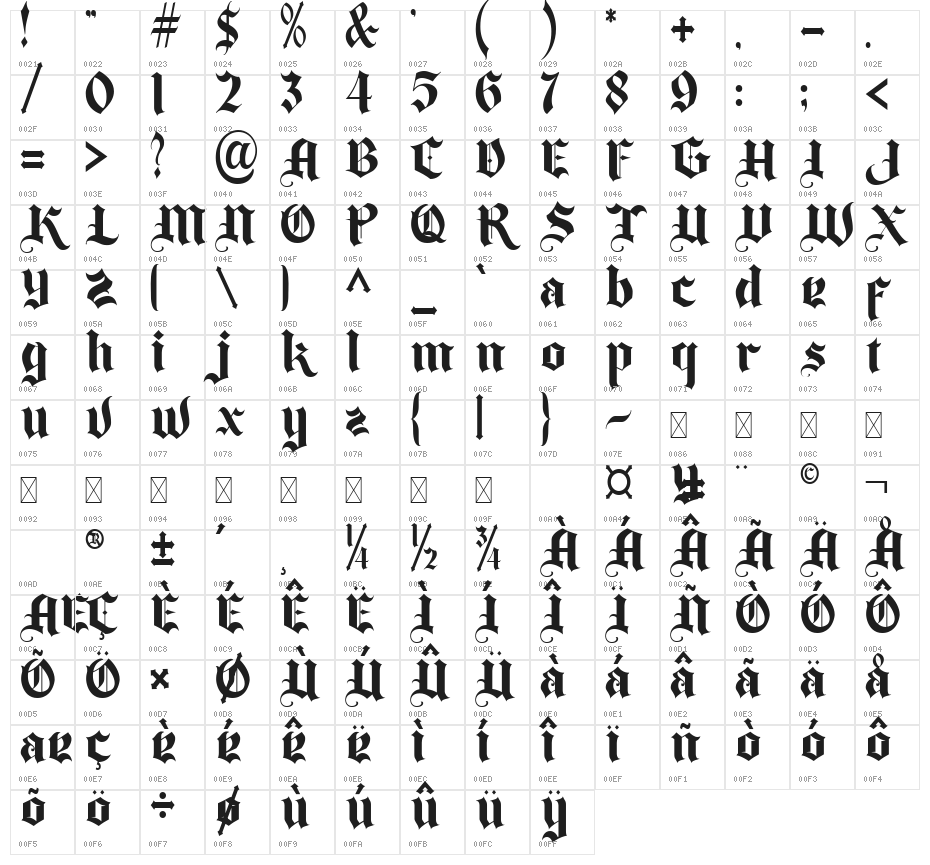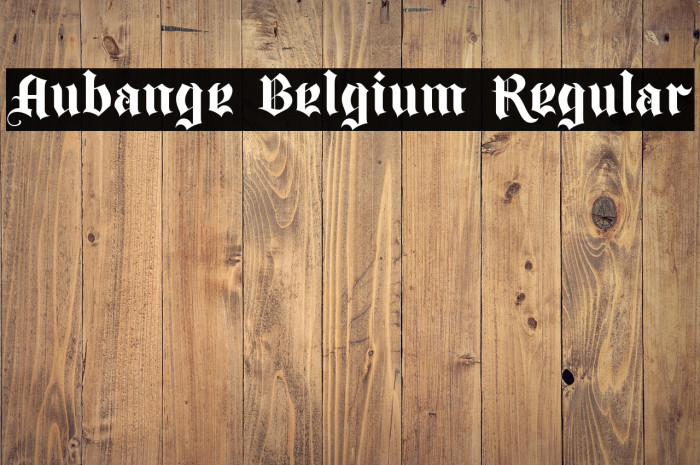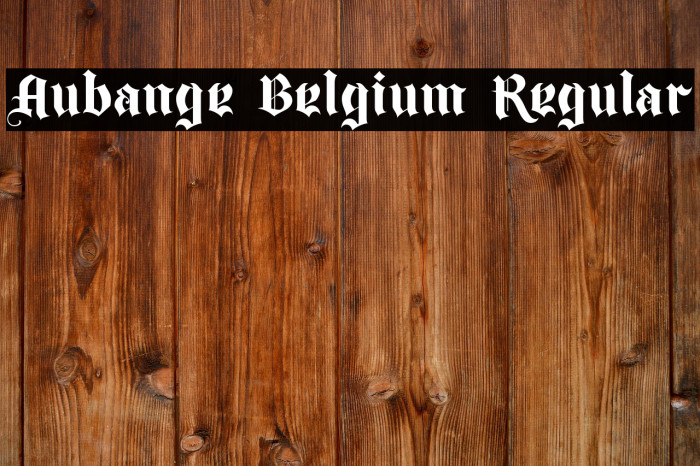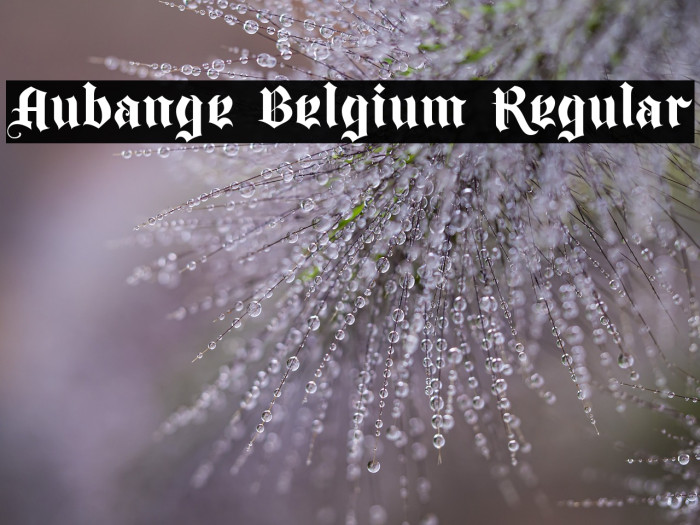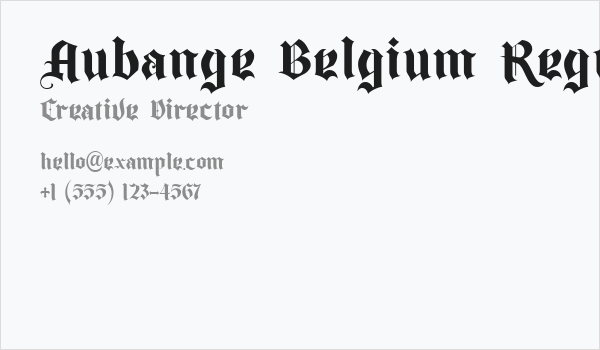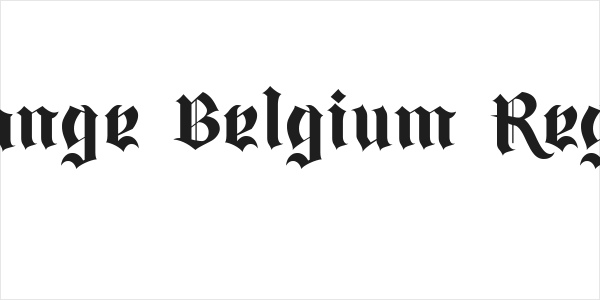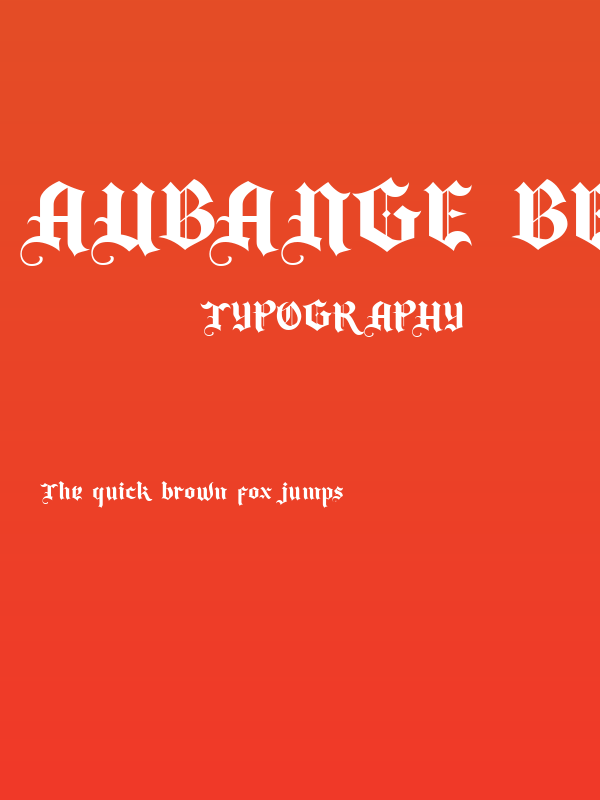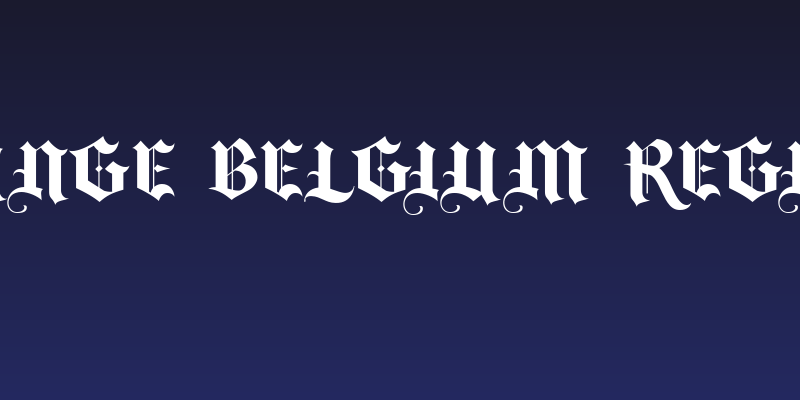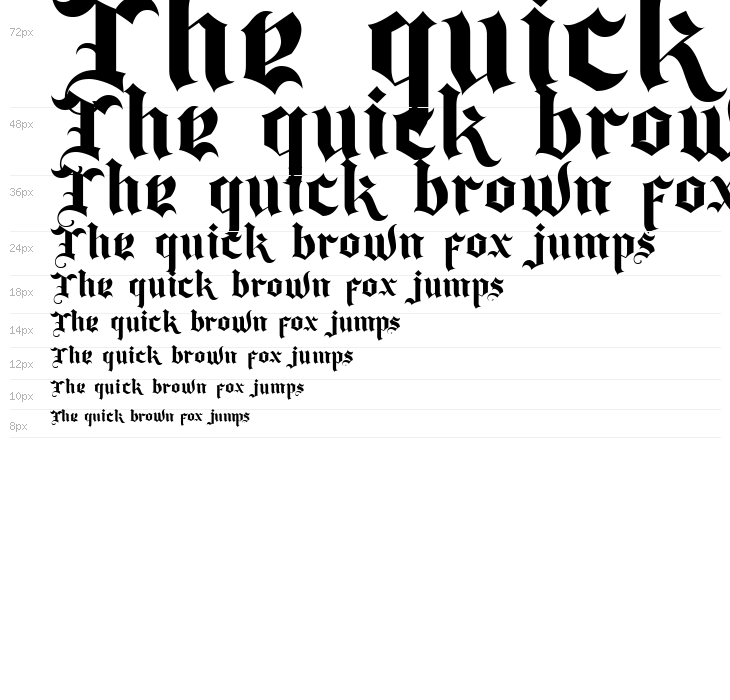
Aubange Belgium Regular Font
Aubange Belgium Regular Description
This font exudes a classic and ornate style, reminiscent of traditional Blackletter typefaces. The characters are intricately designed with sharp, angular lines and decorative flourishes, giving it a historic and formal appearance. The uppercase letters are particularly elaborate, featuring extended strokes and embellishments that enhance their visual impact. The lowercase letters maintain a consistent style, with a slightly more subdued ornamentation. Numerals and special characters are crafted to match the overall aesthetic, ensuring a cohesive look across all text. This font is ideal for projects that require a touch of elegance and tradition.
| Use Case | Headlines, Logos, Certificates |
| Proposed Projects | Suitable for certificates, invitations, historical documents, and branding that requires a traditional or formal touch. |